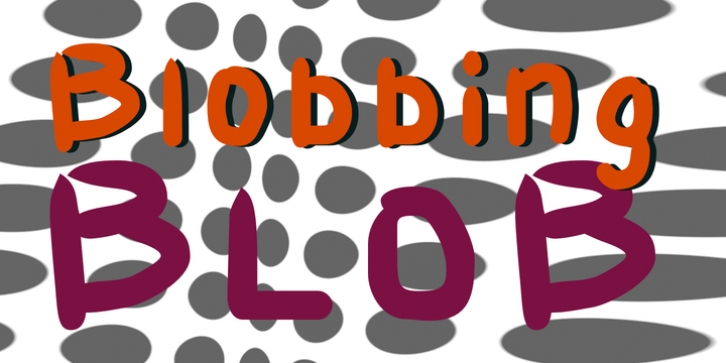
Blobbing was designed by Jordan Davies and published by Wooden Type Fonts. Blobbing contains 1 style.
One of a few quirky display types by this designer.